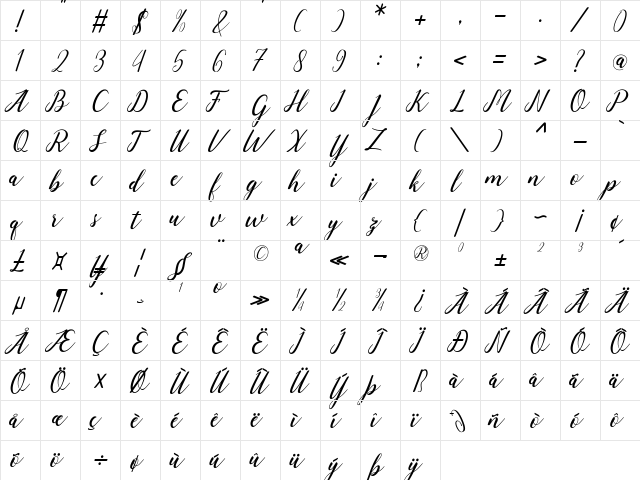
Design Context for angeline Typeface
angeline is a composed and adaptable typeface that performs quietly and consistently across a wide range of design contexts.
Pro Tip: Use angeline in both headline and body roles to test its range before committing to a single application.